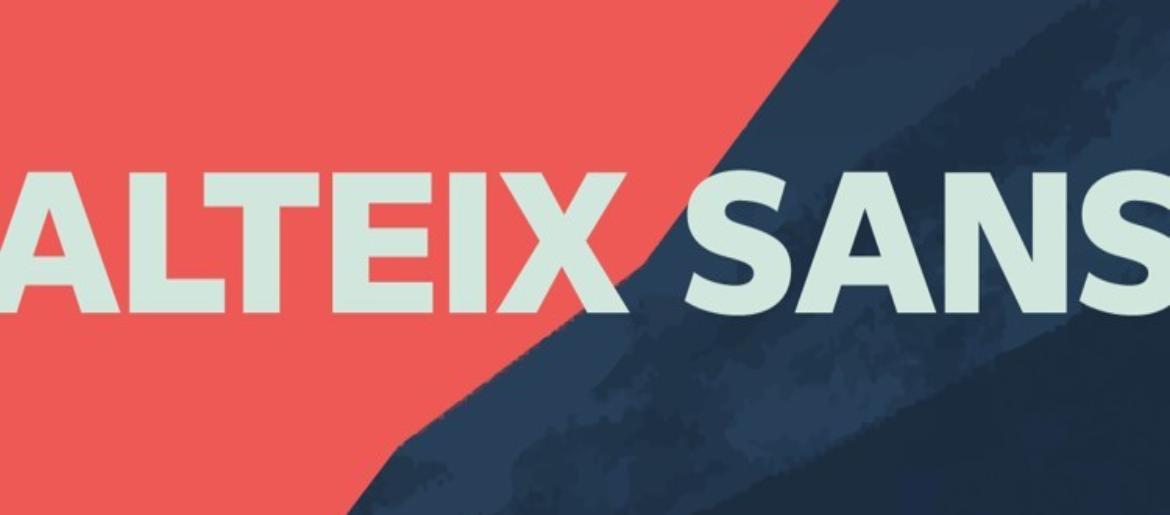
Alteix Sans Font
Alteix font is a modern sans-serif font family crafted for personality and polish across digital and print projects. Its smooth, balanced aesthetic suits tech websites, logos, UI design, and futuristic book covers, offering a friendly yet premium look ideal for startups, creatives, and contemporary branding.
➤ Font Name: Alteix Sans
➤ Designer:Pedro Teixeira Foundry
➤ Style: Modern